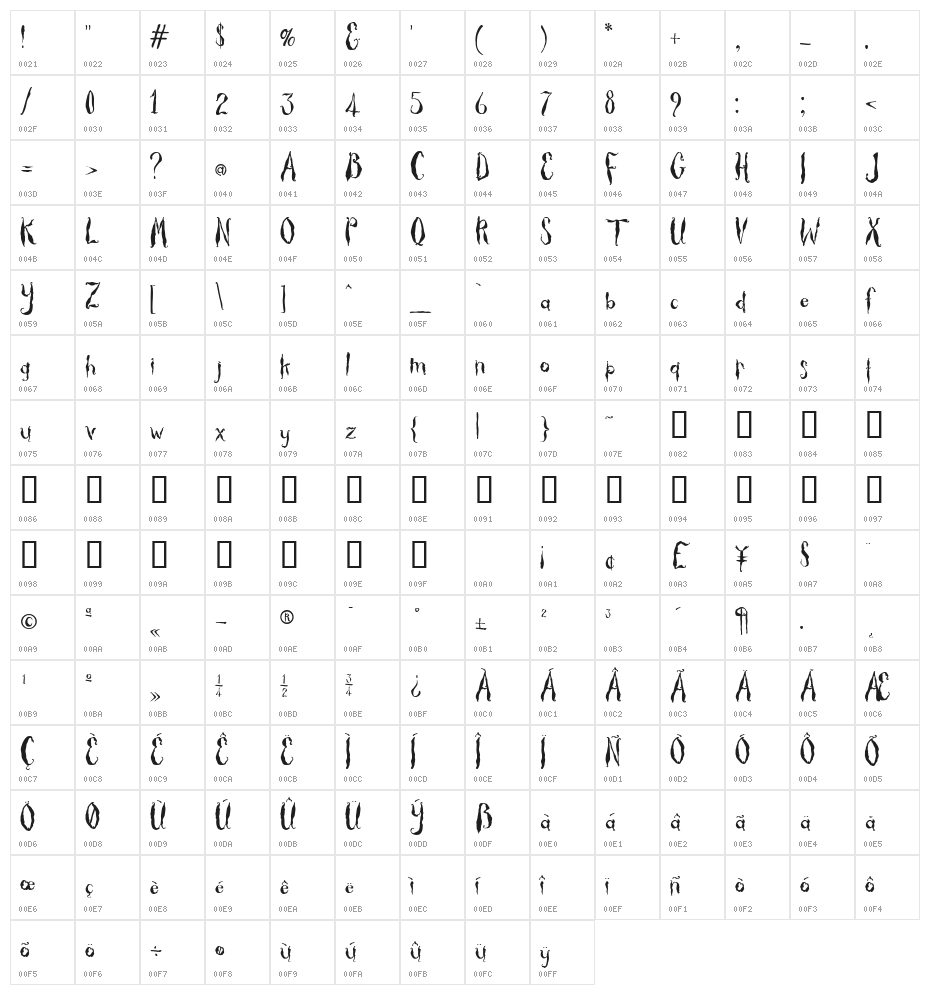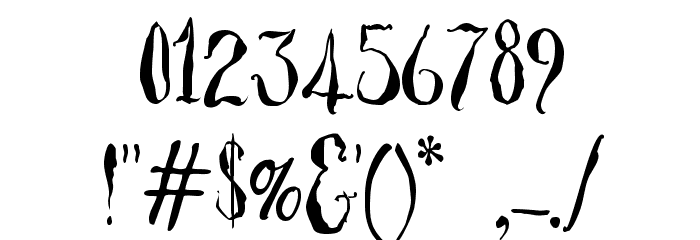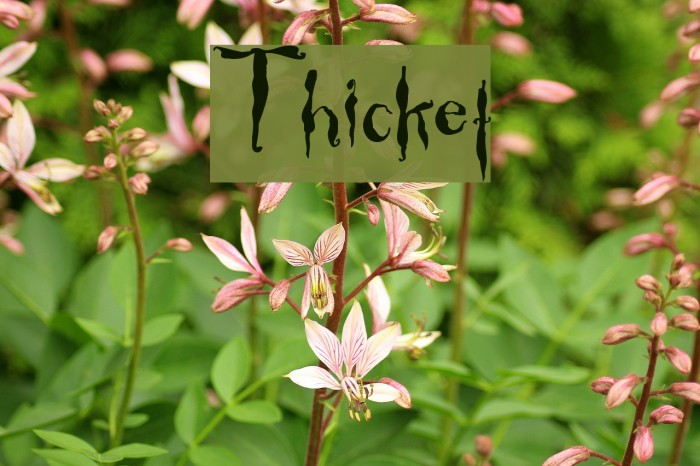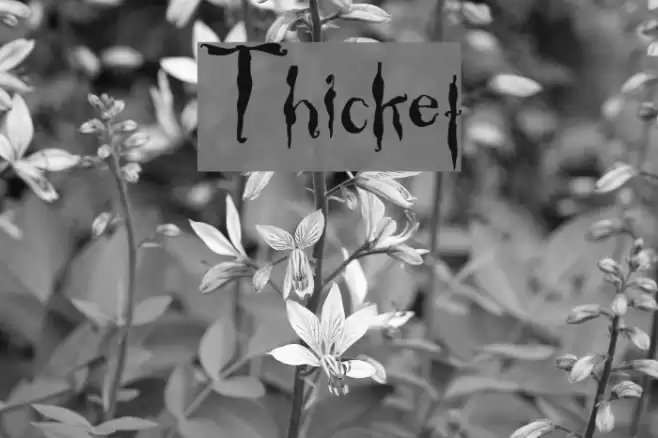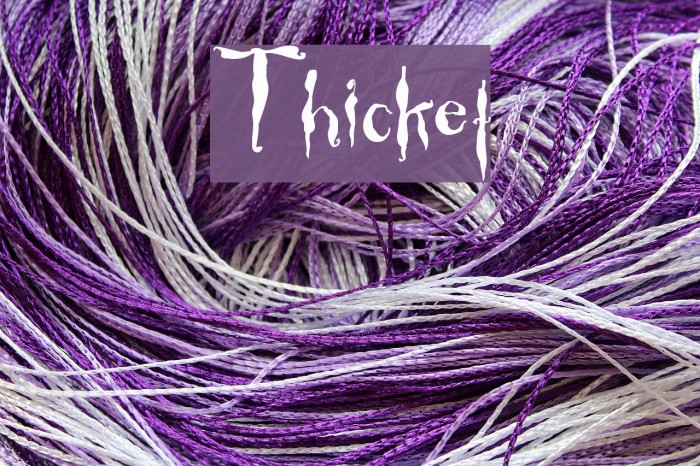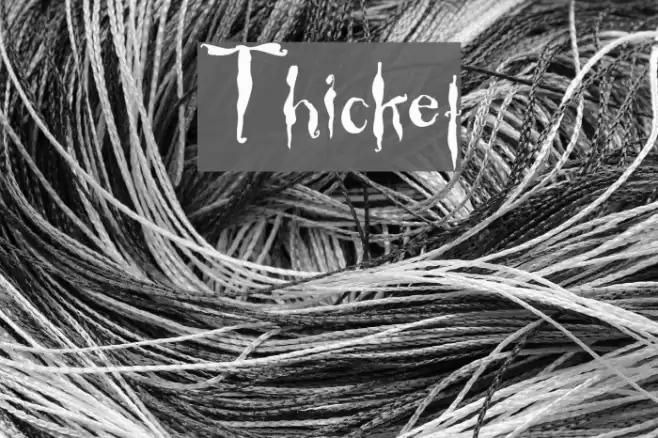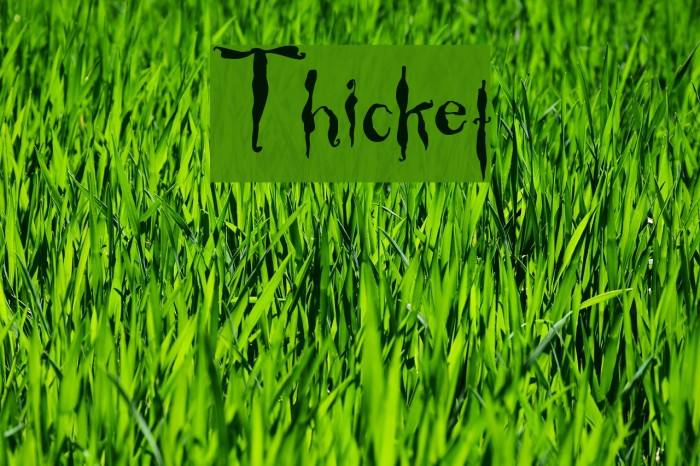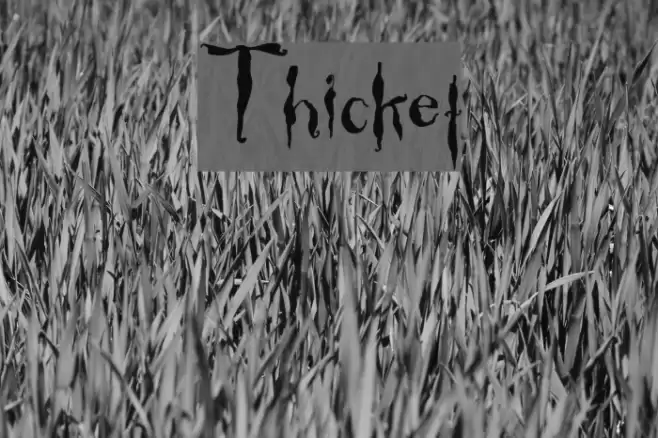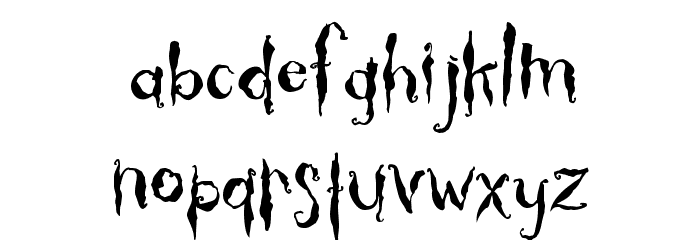
Thicket Font
Thicket Description
This font features a unique and organic design, reminiscent of twisted vines or branches. The characters have irregular, jagged edges that give them a wild and untamed appearance. The uppercase and lowercase letters maintain a consistent style, with varying stroke widths that add to the natural, hand-drawn feel. Numbers and special characters follow the same aesthetic, ensuring a cohesive look across all glyphs. The overall impression is one of mystery and nature, making it ideal for projects that require a touch of the fantastical or the eerie.
| Proposed Projects | Perfect for fantasy-themed designs, Halloween invitations, book covers, or any project needing a mysterious and natural touch. |